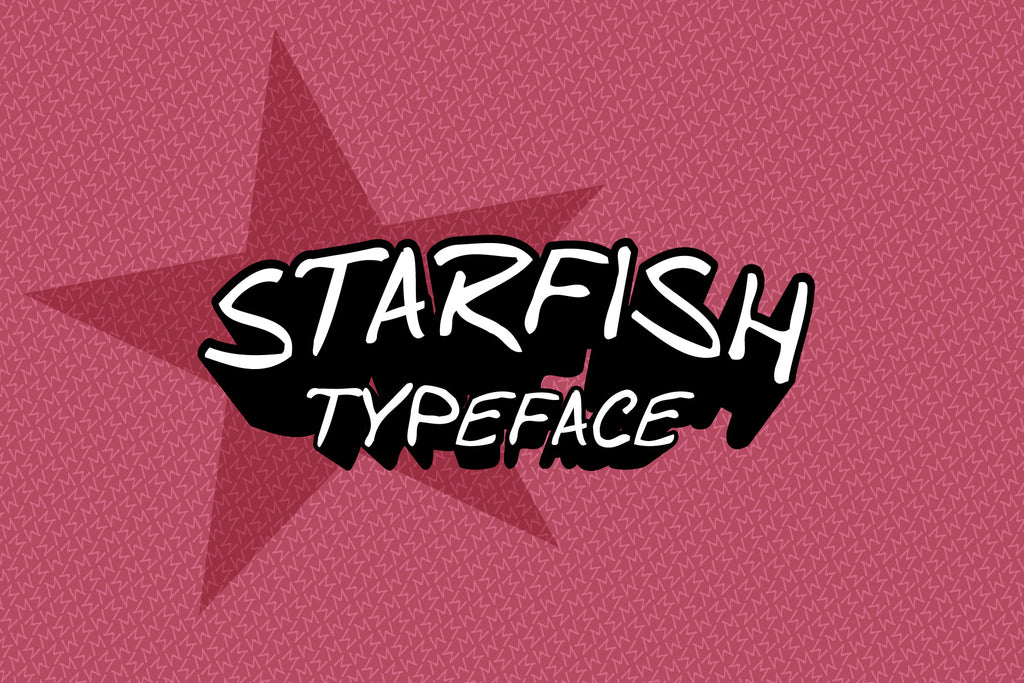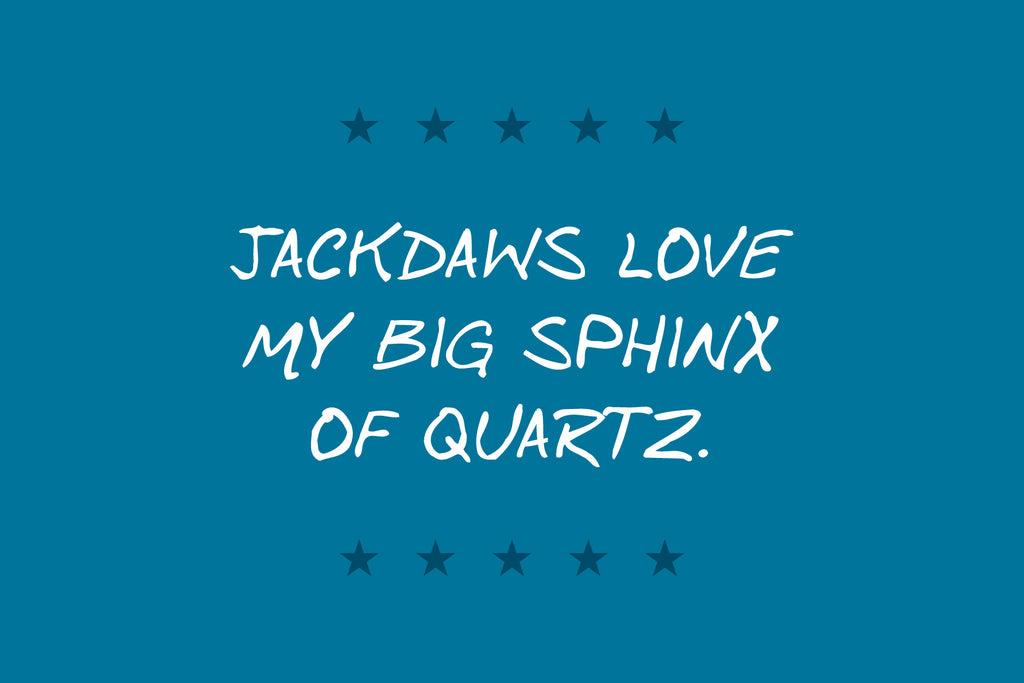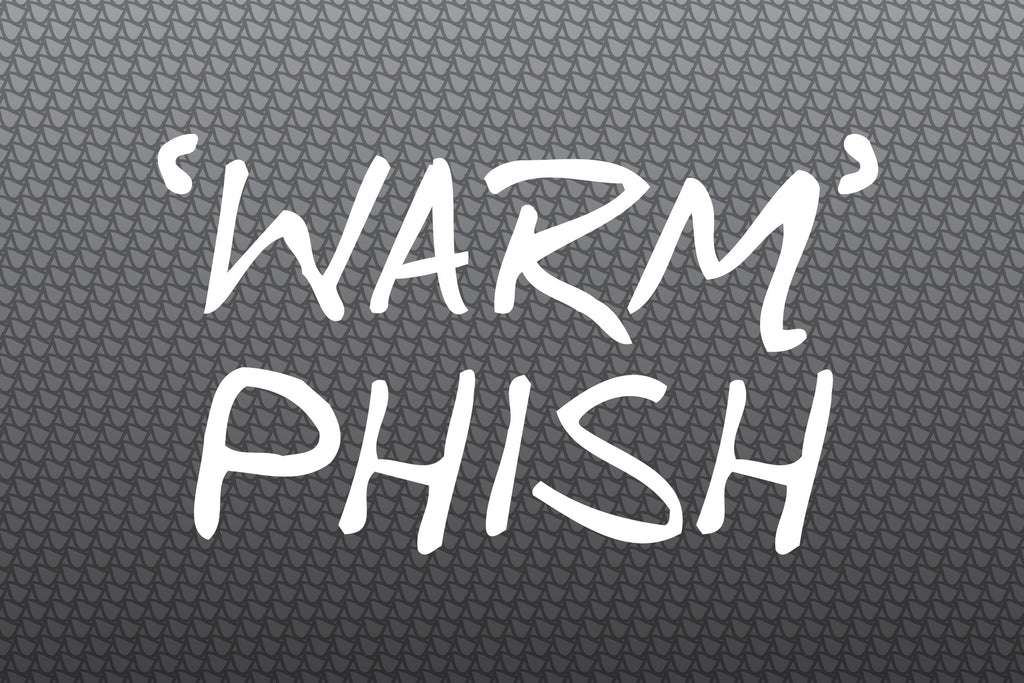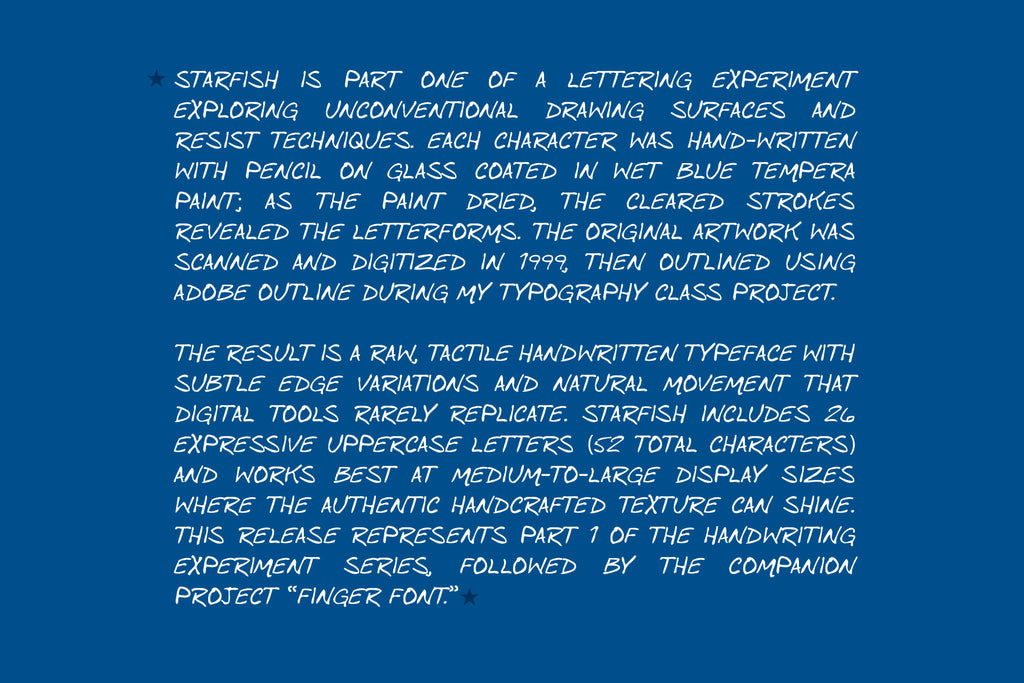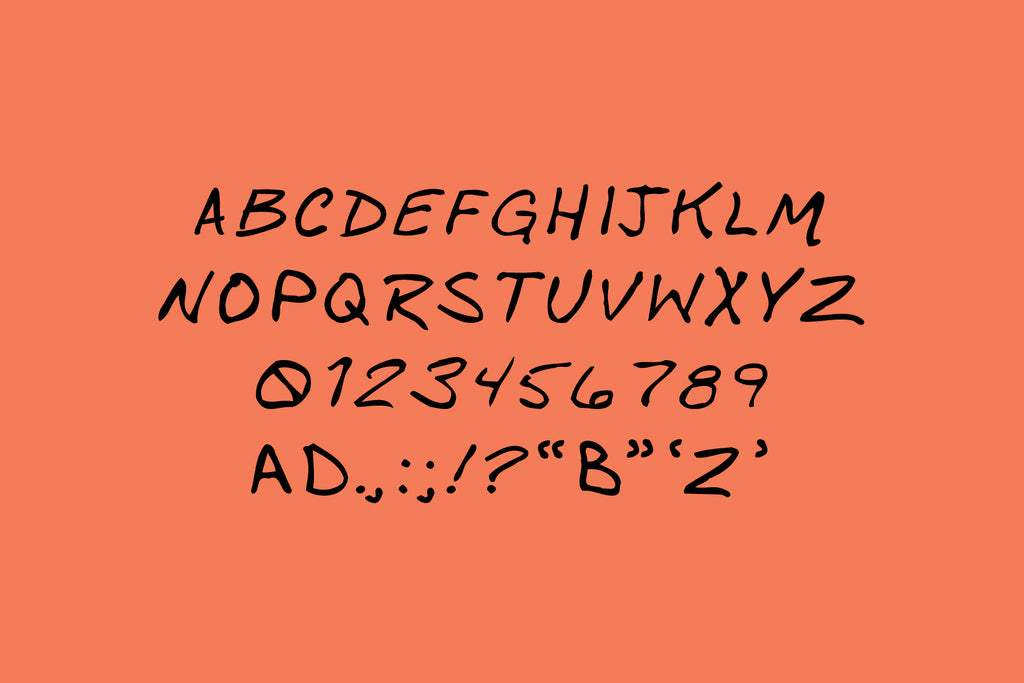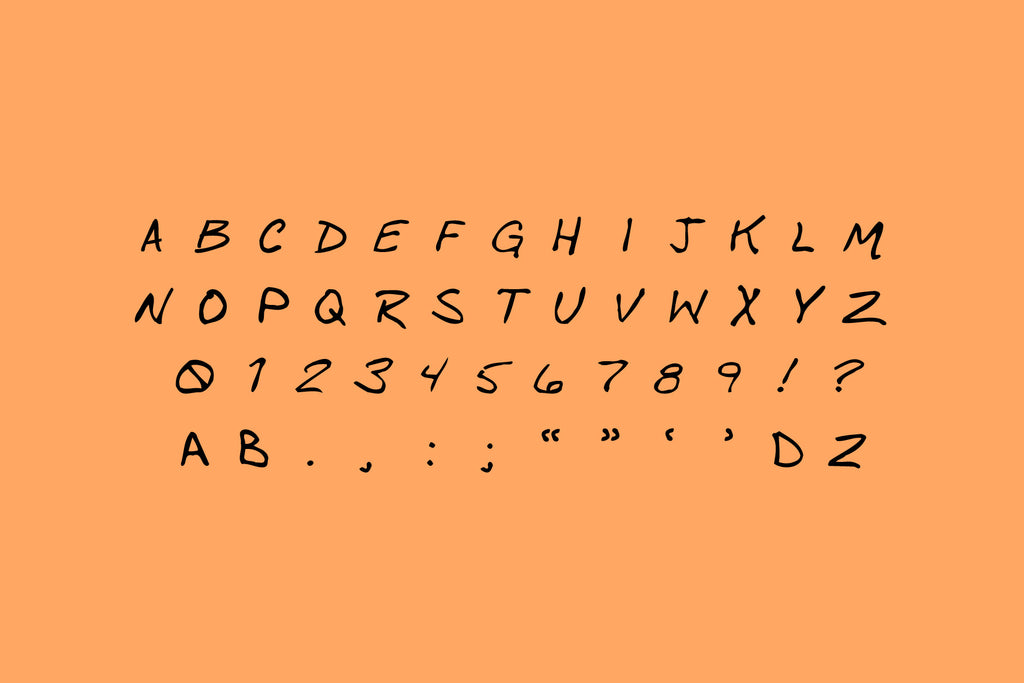
Starfish Typeface
Starfish is part one of a lettering experiment exploring unconventional drawing surfaces and resist techniques. Each character was hand-written with pencil on glass coated in wet blue tempera paint; as the paint dried, the cleared strokes revealed the letterforms. The original artwork was scanned and digitized in 1999, then outlined using Adobe Outline during a Type 3 typography class project.
The result is a raw, tactile handwritten typeface with subtle edge variations and natural movement that digital tools rarely replicate. Starfish includes 26 expressive uppercase letters (52 total characters) and works best at medium-to-large display sizes where the authentic handcrafted texture can shine. This release represents Part 1 of the handwriting experiment series, followed by the companion project “Finger Font.”
Ideal uses include expressive headlines, experimental typography, creative posters, art-driven branding, and projects that benefit from a handmade, process-visible aesthetic.